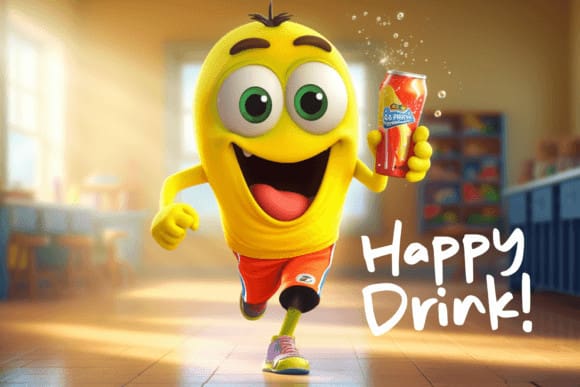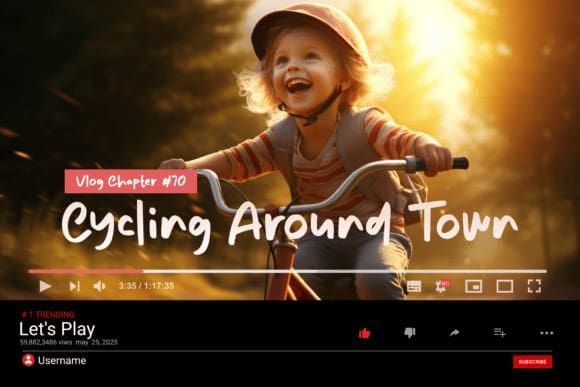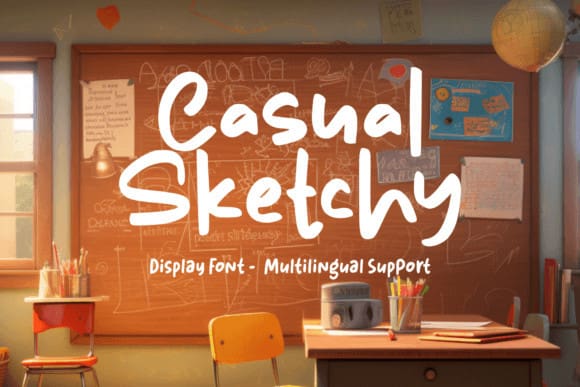
Casual Sketchy Font
Casual Sketchy Font is a font created to bring a relaxed, friendly, and less formal design atmosphere. This font embraces a hand-drawn style that resembles rough sketches or doodles, conveying a charming sense of spontaneity. This font is PUA encoded which means you can access all of the glyphs and swashes with ease!